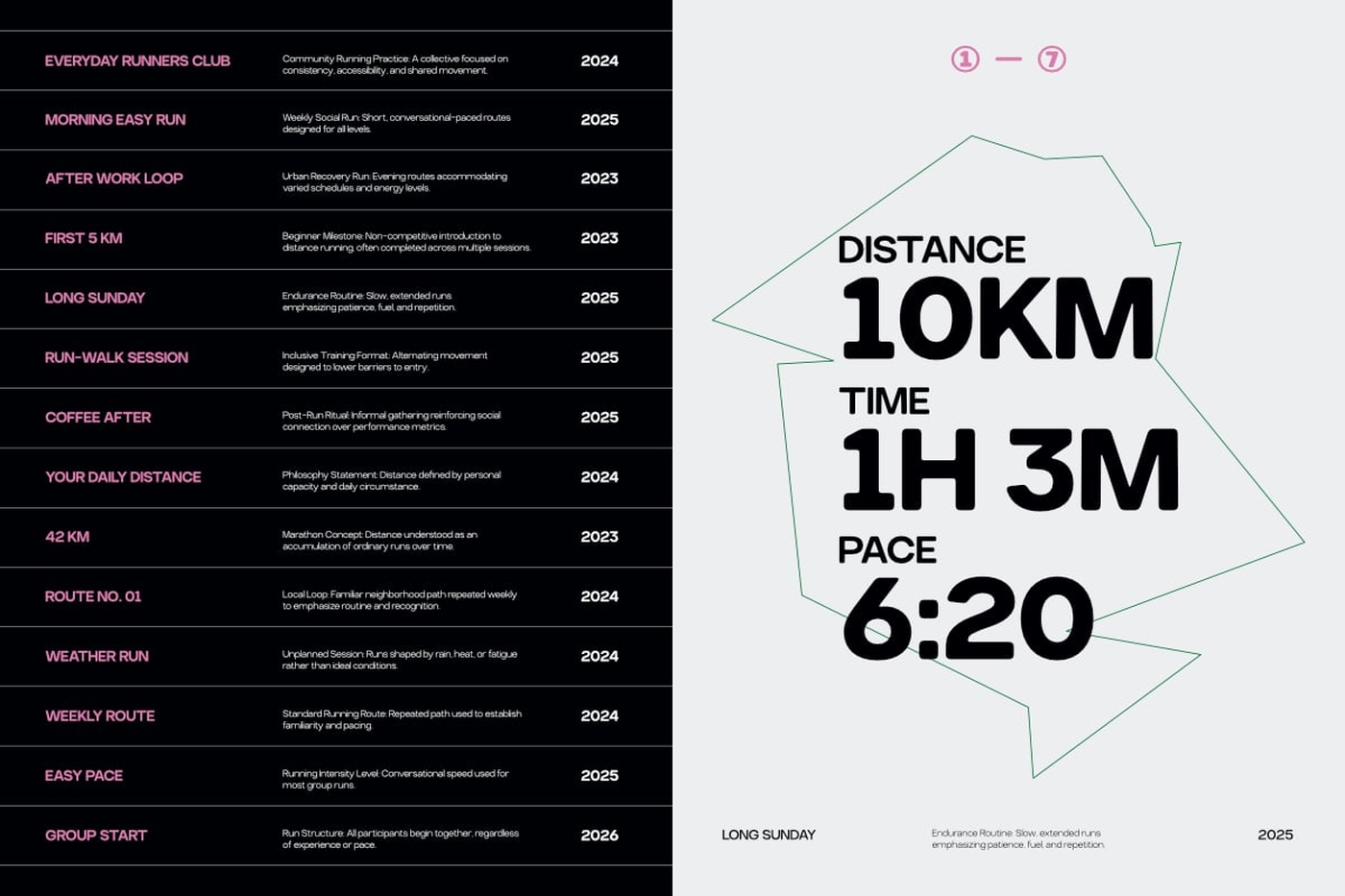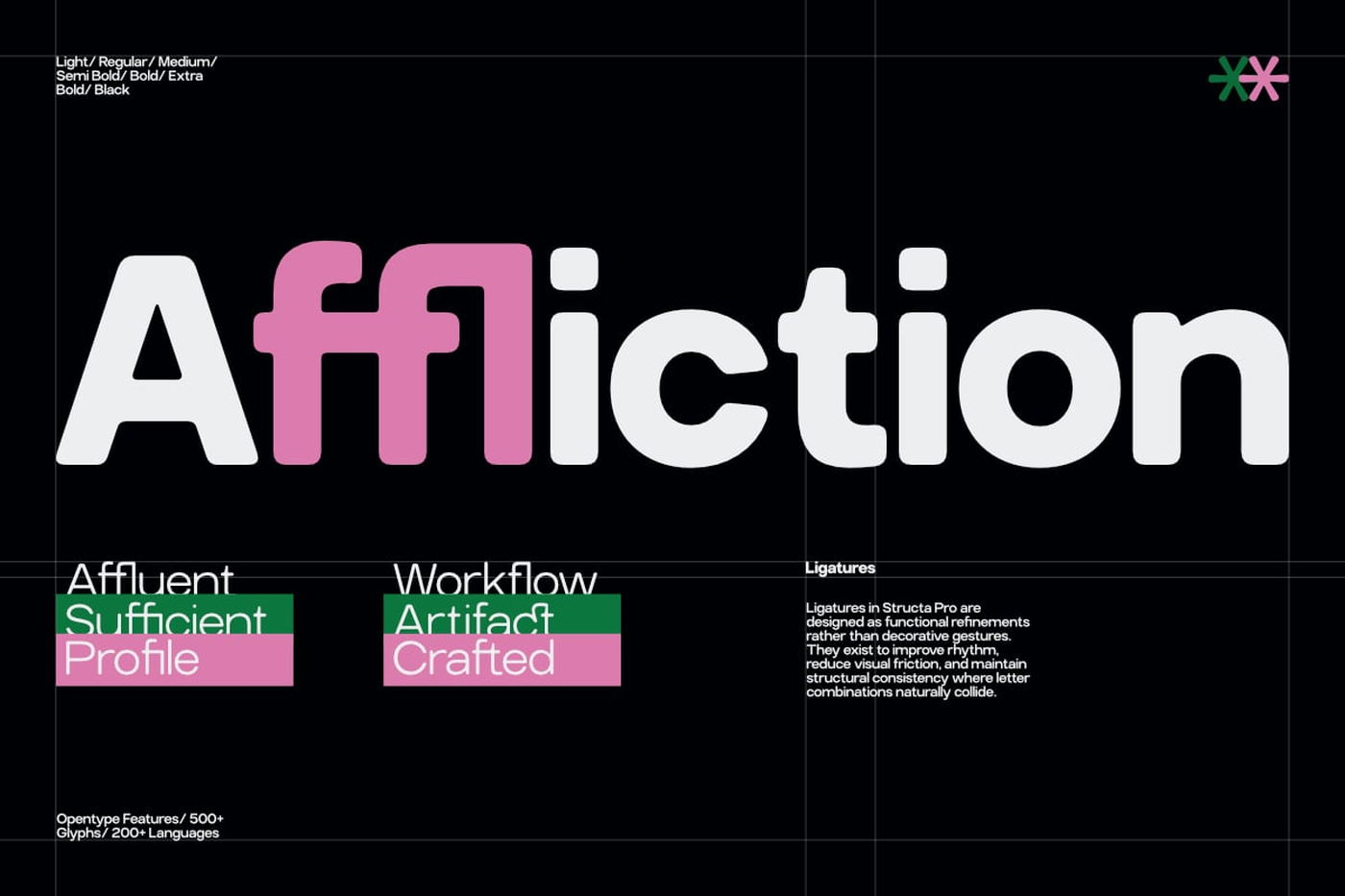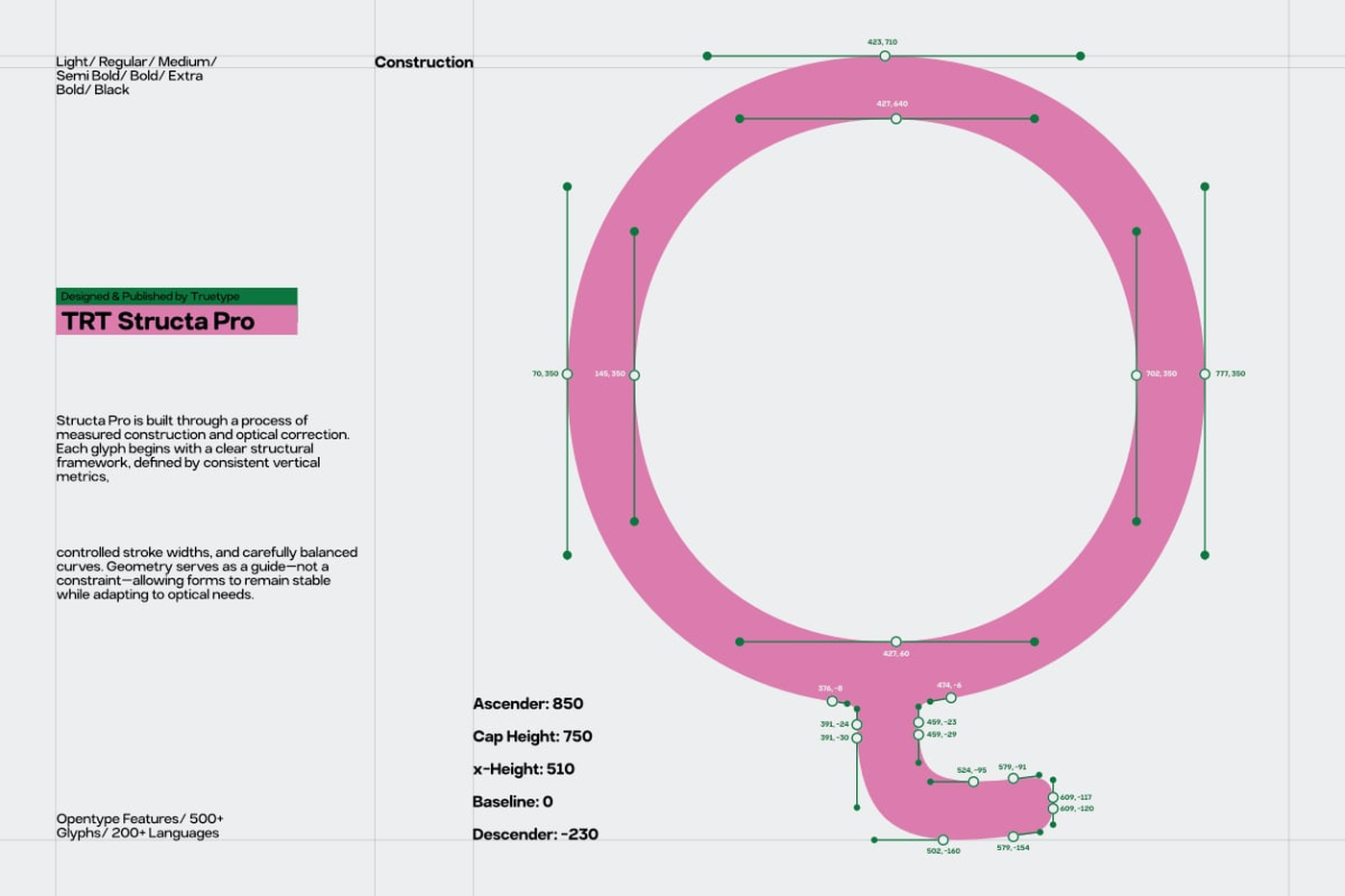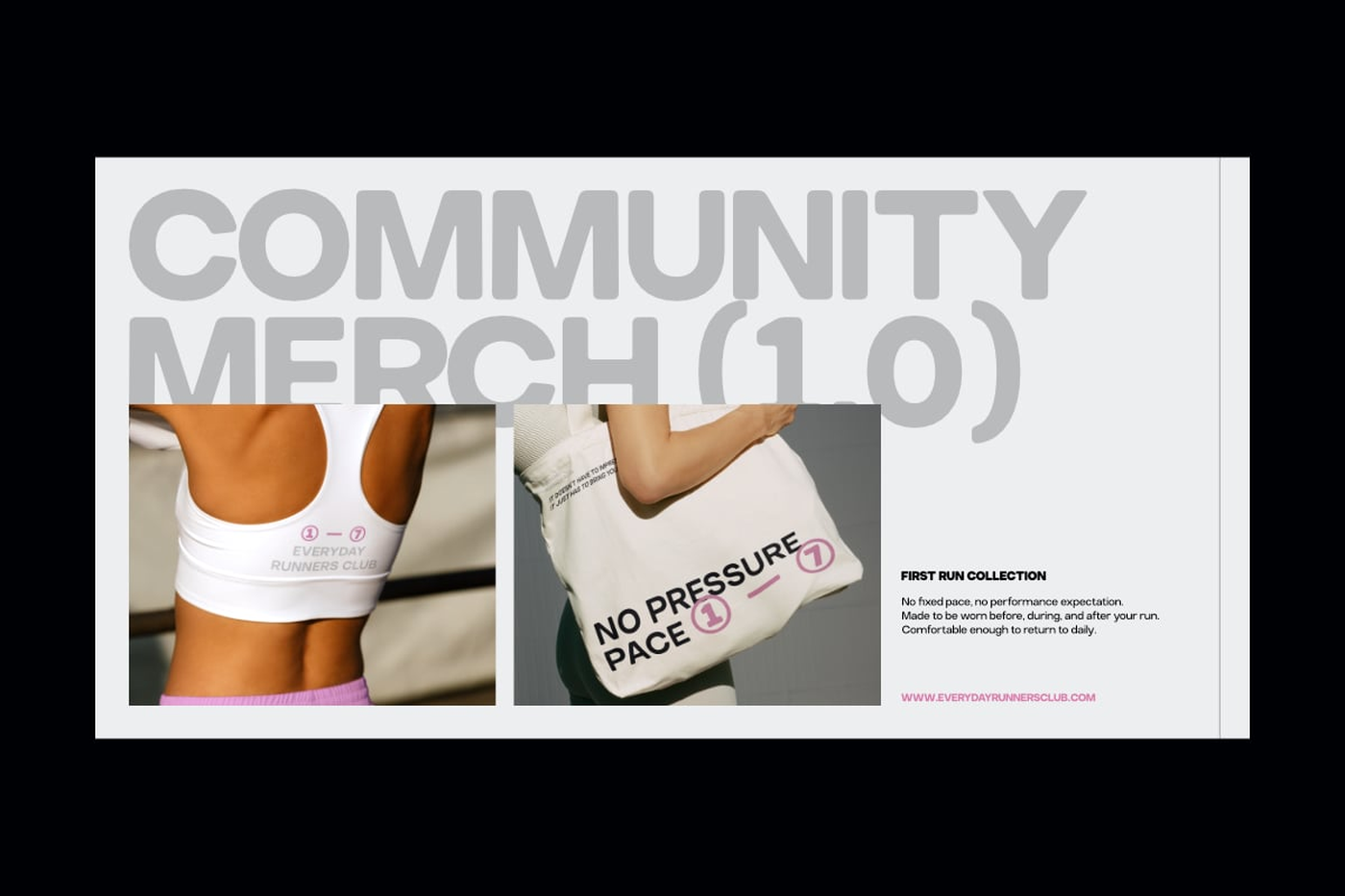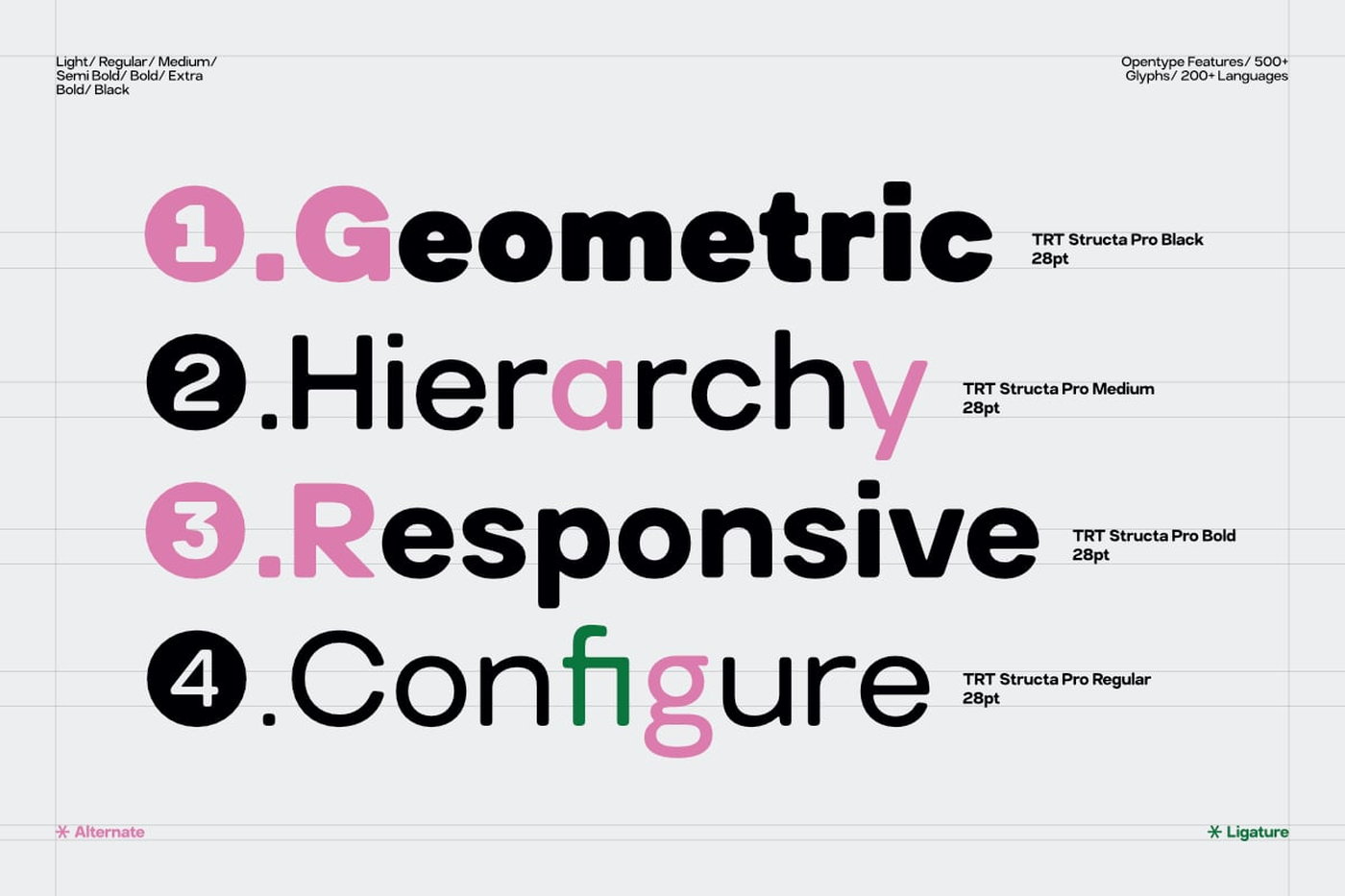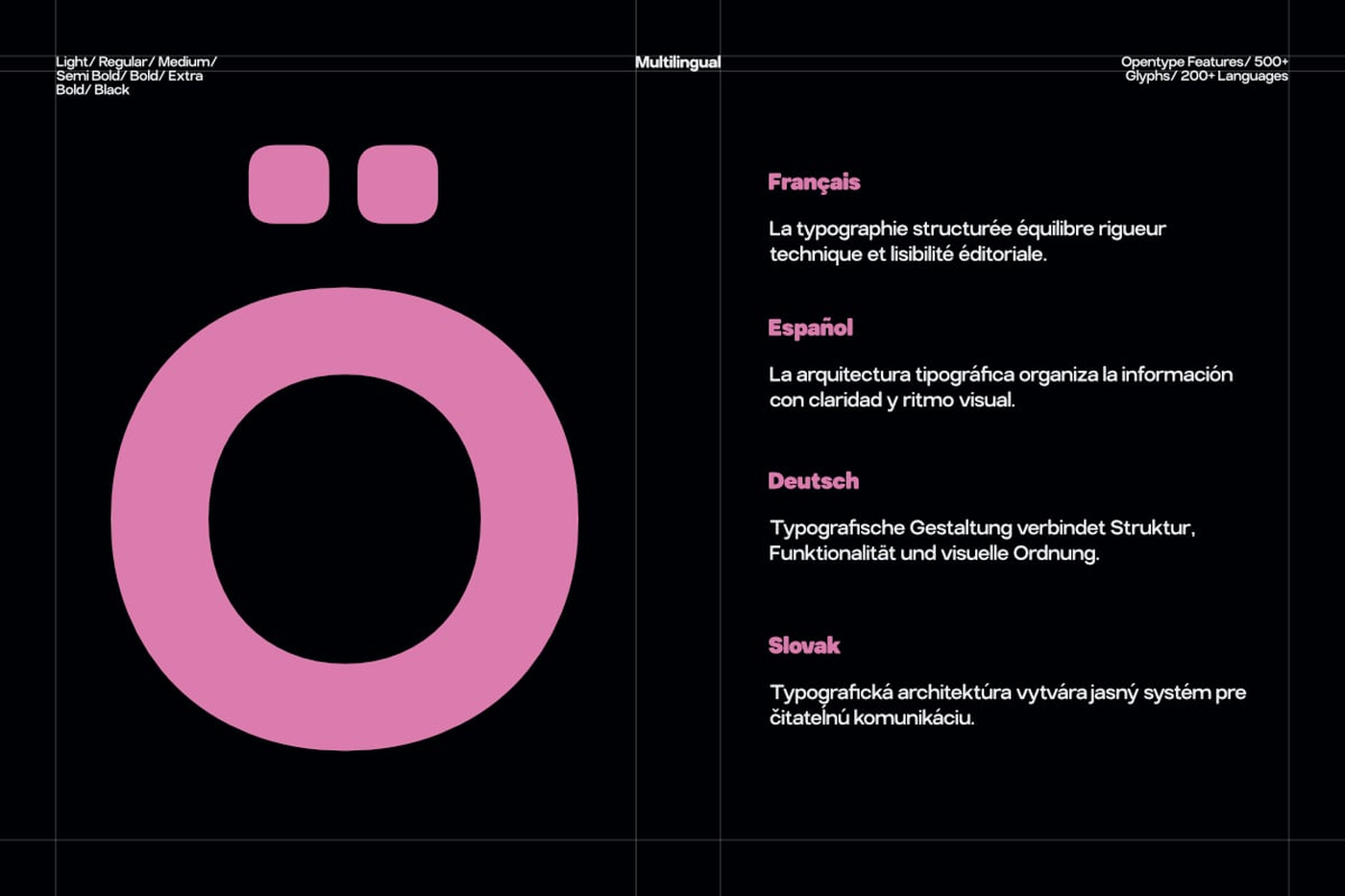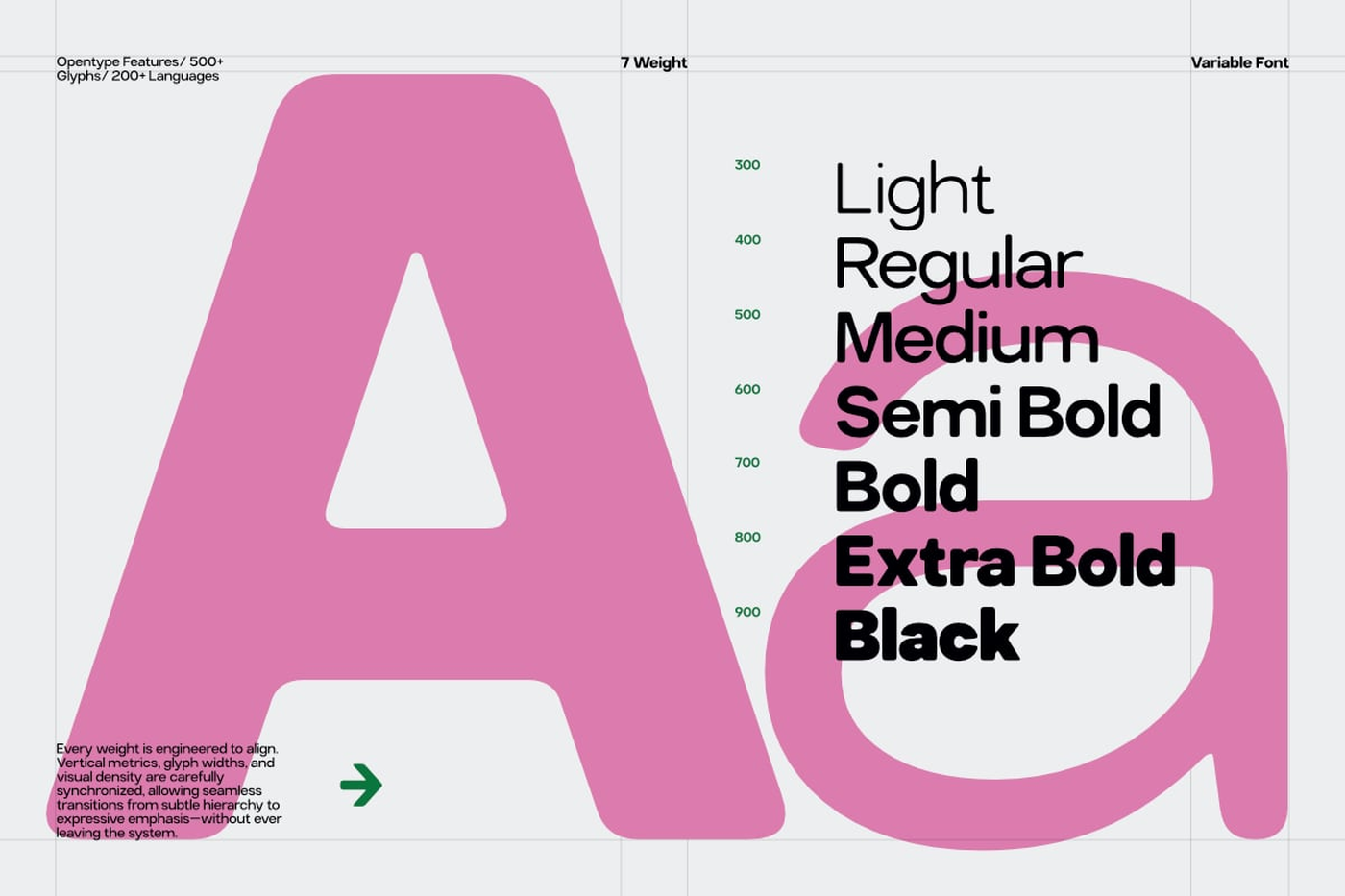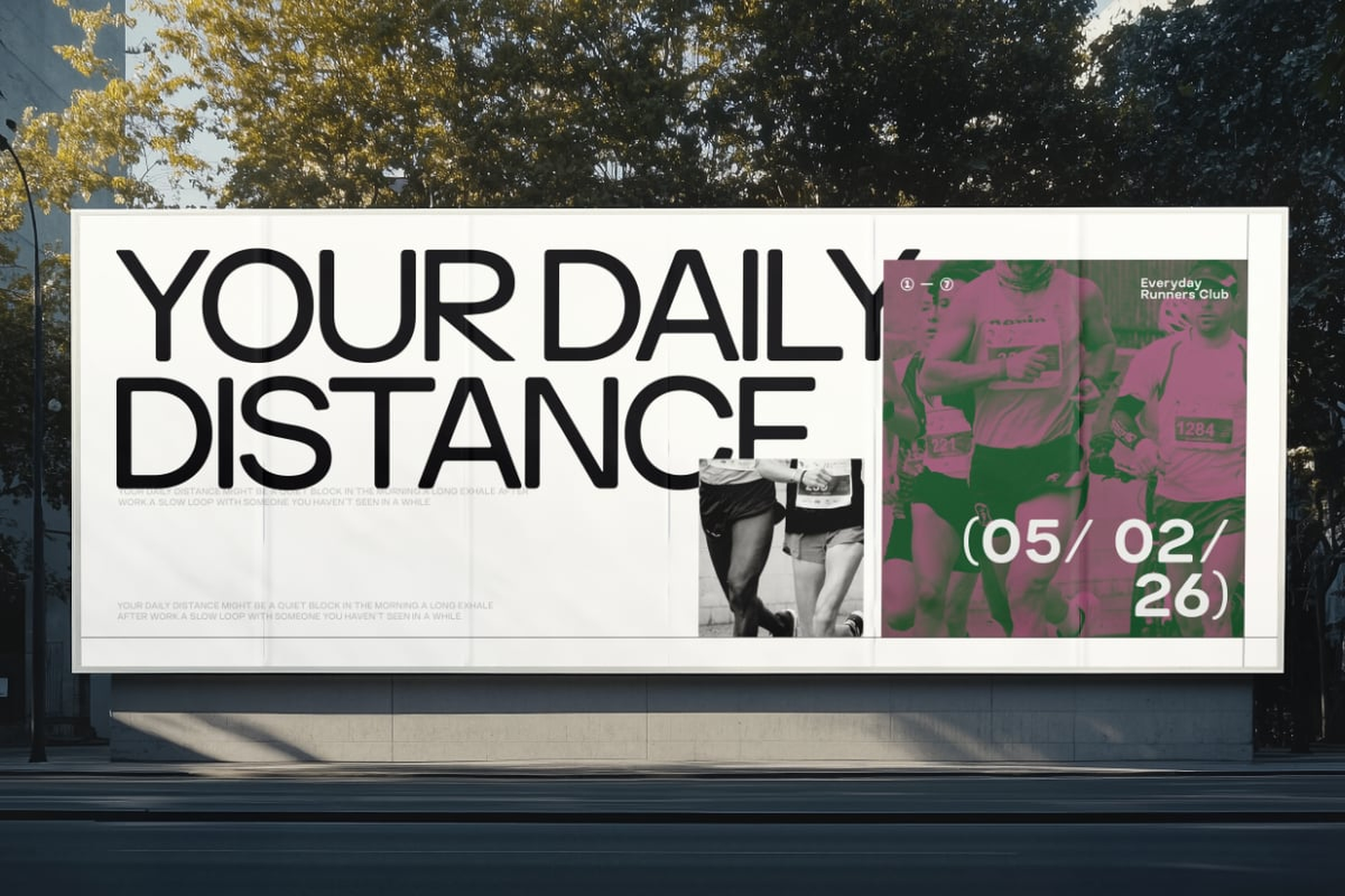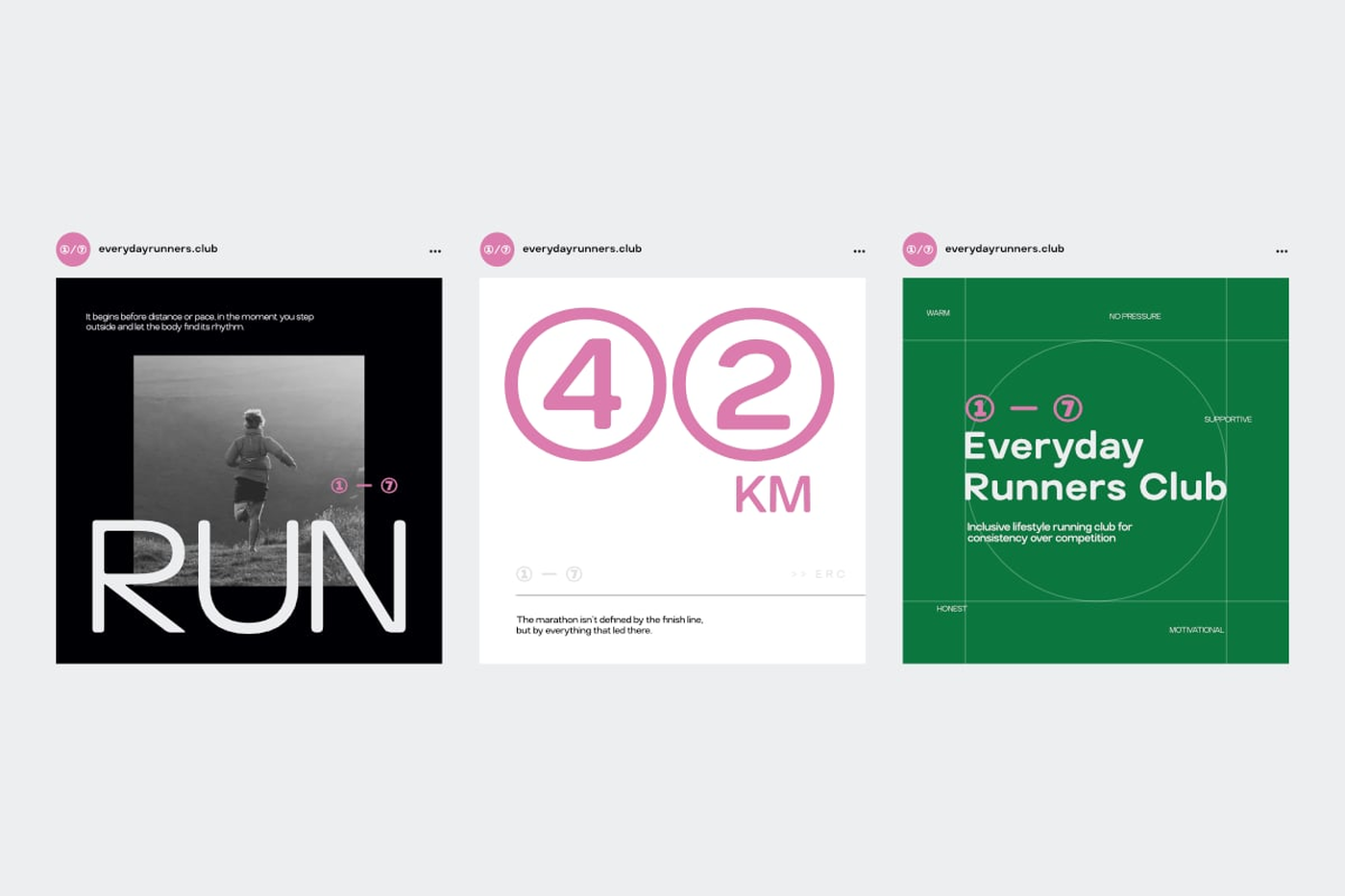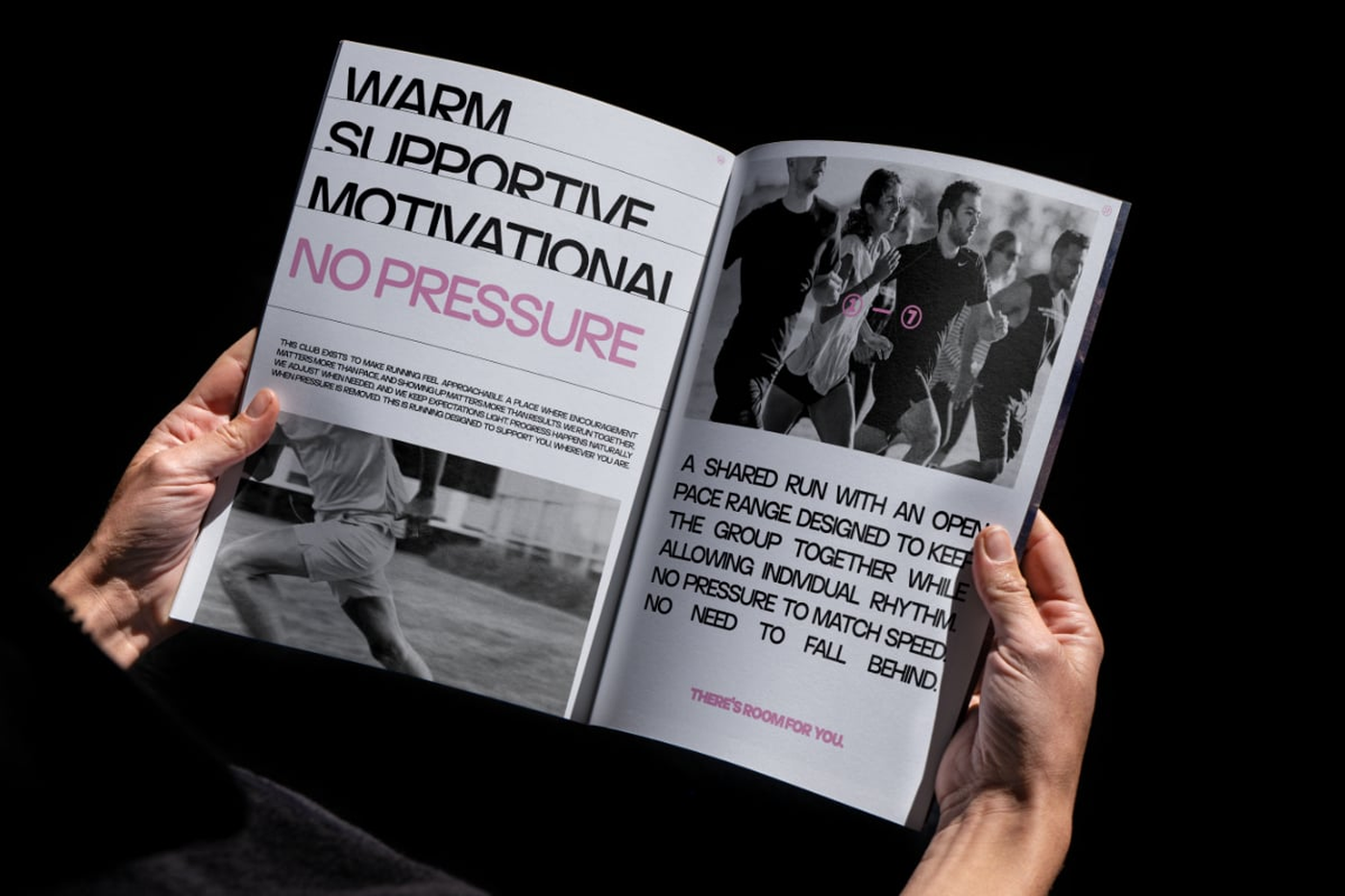
Structa Pro - Modern Sans Serif Font
TBJ Structa Pro is a modern rounded sans serif typeface that emphasizes softness, clarity, and structure. Built on a solid semi grotesque foundation, Structa Pro features smooth curves, rounded terminals, and balanced proportions creating a friendly yet professional typographic tone. Designed to feel approachable without losing precision, Structa Pro works seamlessly across both digital and print environments. Its rounded forms soften the overall appearance, making it ideal for modern branding, user interfaces, editorial layouts, and logo design where warmth and readability are equally important. With multiple weights and a variable font option, TBJ Structa Pro adapts easily to diverse design systems from expressive headlines to clean UI text. The typeface maintains consistency and legibility while adding a subtle personality that feels modern, human, and refined.